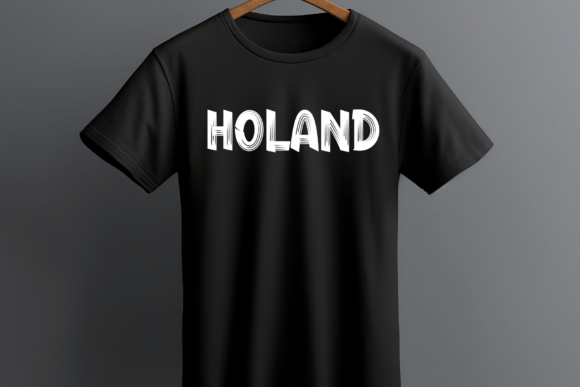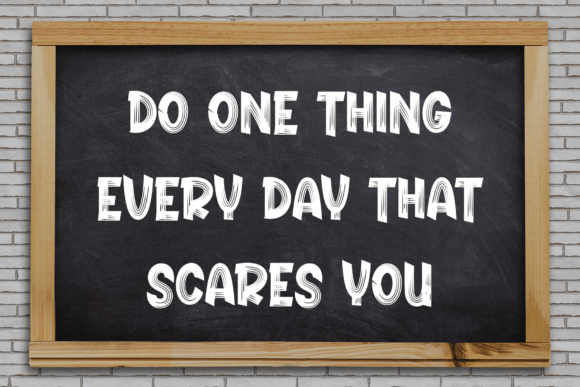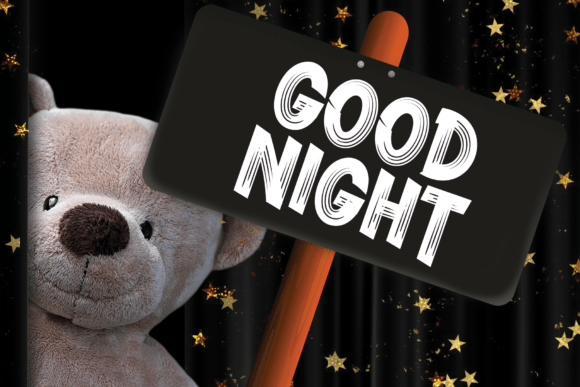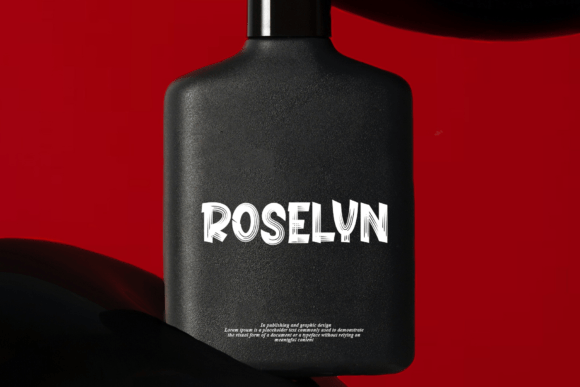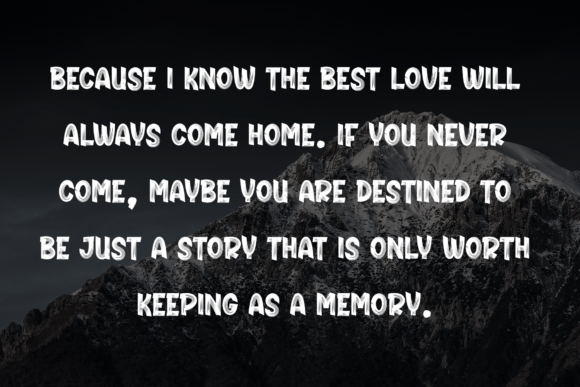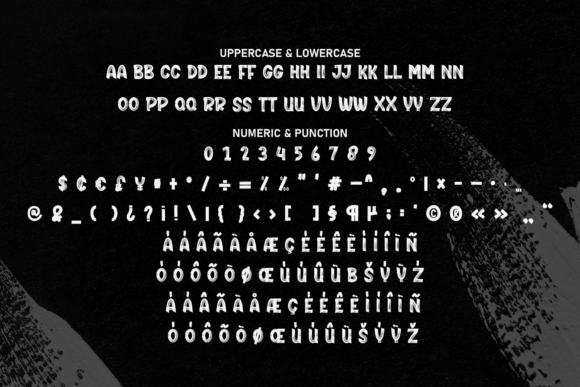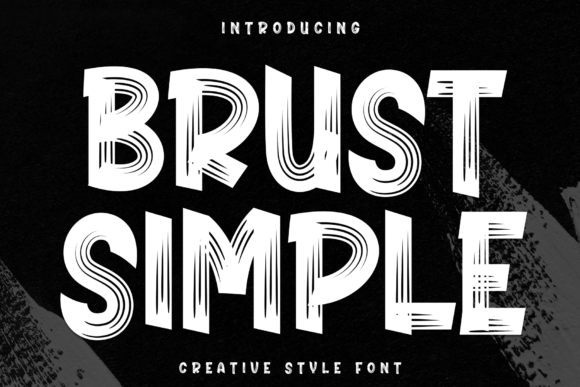
Discover the Charm of Brust Simple Font: Elevate Your Designs with Clarity and Personality
In the world of typography, finding the perfect font that balances style, clarity, and approachability can be a daunting task. However, if you’re on the hunt for a typeface that embodies modern simplicity with a laid-back vibe, look no further than the Brust Simple Font. This neat and casual display font has been making waves in the design community for its unique ability to blend clean lines with a friendly, approachable feel, making it an ideal choice for a wide range of design projects.
The Essence of Brust Simple Font
Brust Simple Font is characterized by its clean lines and friendly letterforms, which work harmoniously to bring a sense of modernity and casualness to any design. Its balanced structure ensures that the font remains highly readable, even at larger sizes, making it perfect for headlines, posters, packaging, and branding projects that aim to convey a sense of modernity without appearing too formal or rigid.
Key Features of Brust Simple Font
- Clean and Simple Design: The font boasts a minimalist design that focuses on clarity and simplicity, making it versatile for various applications.
- Playful yet Professional: Despite its simplicity, Brust Simple Font carries a playful energy that adds personality to your designs without overwhelming the message.
- Highly Readable: Its balanced structure and clear letterforms ensure that your message is conveyed effectively, making it suitable for both digital and print media.
- Modern yet Laid-Back: The font strikes the perfect balance between modern design principles and a relaxed vibe, making it ideal for brands that want to appear approachable and contemporary.
Applications of Brust Simple Font
The versatility of Brust Simple Font makes it suitable for a myriad of design projects. Here are some of the areas where this font truly shines:
- Headlines and Titles: Its clean and modern look makes it perfect for headlines and titles in magazines, blogs, and websites.
- Posters and Flyers: The playful yet professional vibe of the font is ideal for posters and flyers that need to grab attention without appearing too serious.
- Packaging: For product packaging, Brust Simple Font offers a fresh and modern approach that can help your product stand out on the shelves.
- Branding: If you’re looking to revamp your brand’s image or create a new one that feels modern, approachable, and stylish, this font can be a valuable asset.
Why Choose Brust Simple Font?
In a sea of fonts, Brust Simple stands out for its unique blend of simplicity, personality, and readability. Here are a few reasons why designers and crafters are gravitating towards this font:
- Easy to Read: Despite its stylish appearance, the font prioritizes readability, ensuring your message is communicated effectively.
- Versatile: It can be used across various platforms and design materials, from digital interfaces to print materials.
- Unique Personality: The font adds a touch of personality to your designs without overpowering them, making your projects more engaging and memorable.
Brust Simple Font is more than just a typeface; it’s a design companion that can elevate your projects with its modern simplicity and approachable charm. Whether you’re a designer looking for a font that brings both style and readability to your work or a crafter seeking the perfect typography for your next project, Brust Simple Font is an excellent choice. Its ability to blend clarity with a relaxed vibe makes it a versatile tool that can bring your designs to life in a fresh and engaging way. So, why settle for ordinary when you can add a touch of personality and modernity to your work with Brust Simple Font?
Embrace the simplicity, clarity, and playful energy of Brust Simple Font in your next design project and experience the difference it can make.